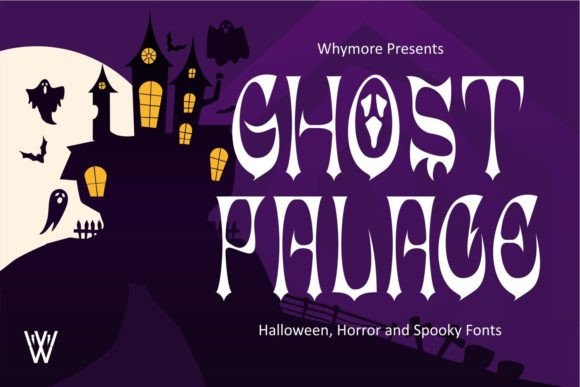
Ghost Palace Font: The Ultimate Decoration Companion for a Spooktacular Halloween
Halloween is just around the corner, and are you ready to make your party decorations stand out from the crowd? Look no further than the Ghost Palace Font, a semi-curly, tropical, yet horror-inspired font that’s perfect for adding a touch of spookiness to your designs. In this article, we’ll explore the features and benefits of the Ghost Palace Font, and how it can help you create a memorable and eerie atmosphere for your Halloween celebrations.
What Makes Ghost Palace Font So Special?
The Ghost Palace Font is a unique and creative font that’s specifically designed to evoke a sense of tropical horror. Its semi-curly style gives it a distinctive and eye-catching appearance, making it perfect for a wide range of design projects, from quotes and logos to badges, labels, packaging, and even t-shirts.
One of the key features of the Ghost Palace Font is its versatility. Whether you’re creating a spooky Halloween decoration or a tropical-themed design, this font is sure to add a touch of horror and whimsy to your project. Its tropical yet horror vibe makes it perfect for designers who want to create a unique and memorable design that’s sure to stand out.
- Semi-curly style: The Ghost Palace Font features a distinctive semi-curly style that’s perfect for adding a touch of whimsy to your designs.
- Tropical yet horror vibe: This font combines a tropical feel with a horror twist, making it perfect for Halloween-themed designs.
How to Use Ghost Palace Font in Your Designs
The Ghost Palace Font is a versatile font that can be used in a wide range of design projects. Here are some ideas to get you started:
- Quotes and posters: Use the Ghost Palace Font to create spooky quotes and posters for your Halloween party.
- Logos and badges: Create a memorable logo or badge for your Halloween-themed business or event using the Ghost Palace Font.
- Labels and packaging: Add a touch of horror to your labels and packaging with the Ghost Palace Font.
- T-shirts and apparel: Create spooky t-shirts and apparel for your Halloween party or event.
The Ghost Palace Font is also perfect for designers who want to create a unique and memorable design for their clients. Whether you’re creating a website, brochure, or business card, this font is sure to add a touch of personality to your design.
Get Ready for a Spooktacular Halloween with Ghost Palace Font
The Ghost Palace Font is the perfect companion for your Halloween party decorations. Its unique semi-curly style and tropical yet horror vibe make it perfect for adding a touch of spookiness to your designs. Whether you’re creating quotes, logos, badges, labels, packaging, or t-shirts, this font is sure to make your designs stand out.